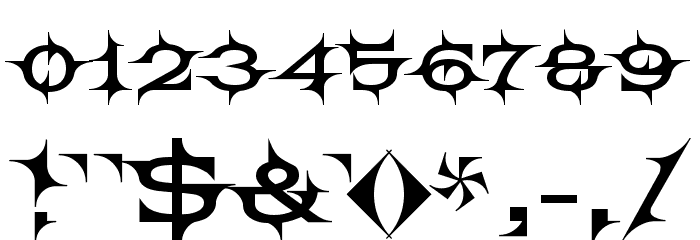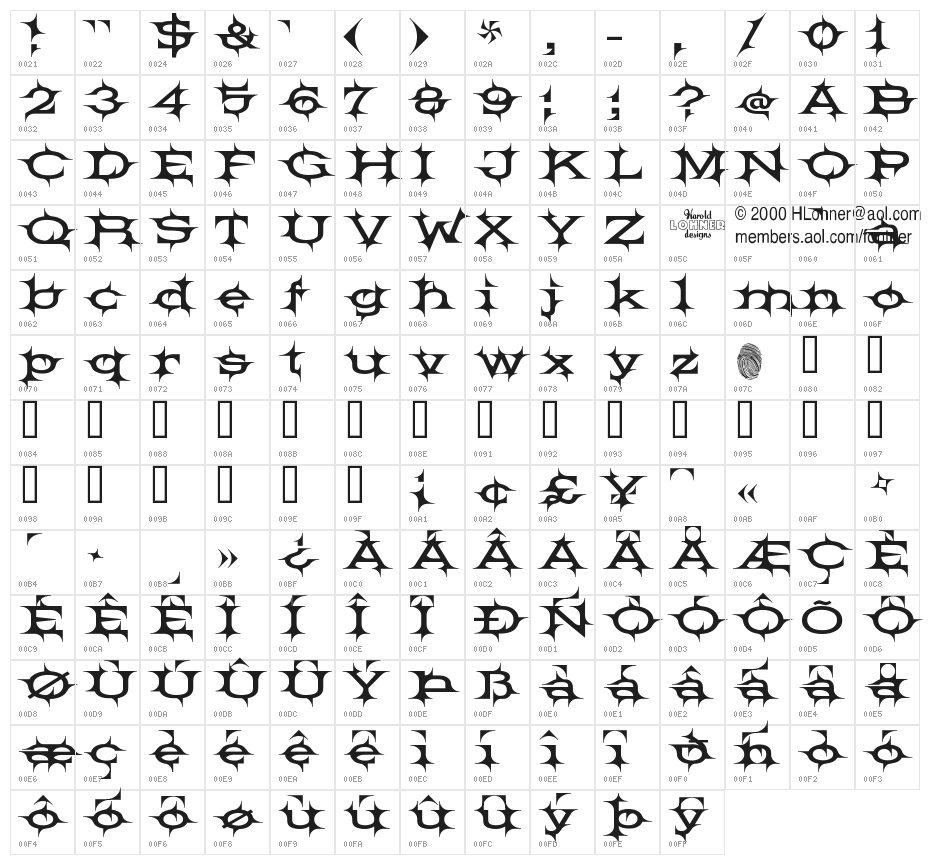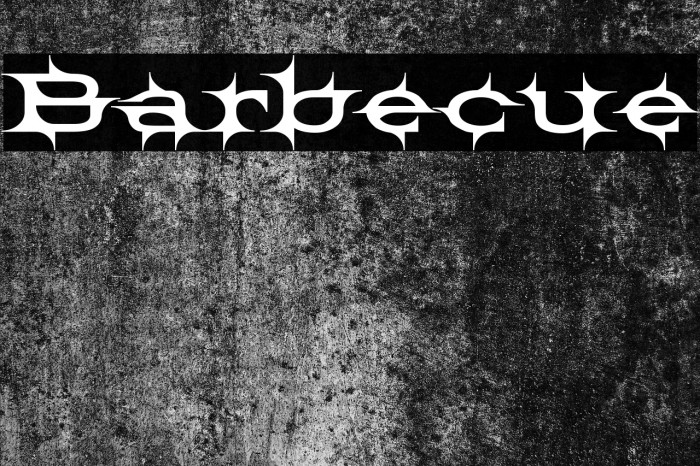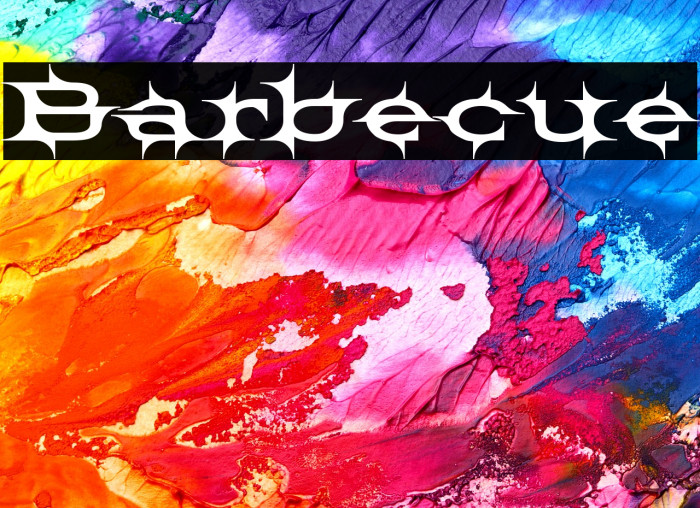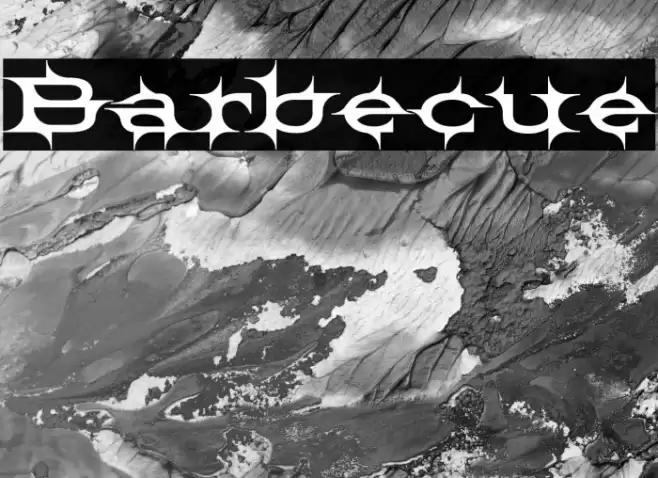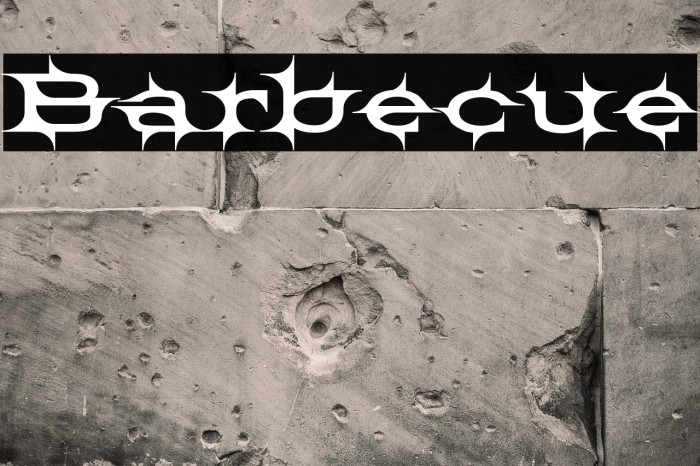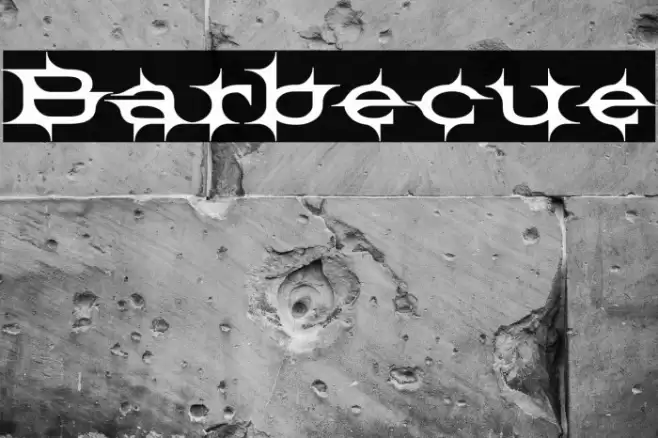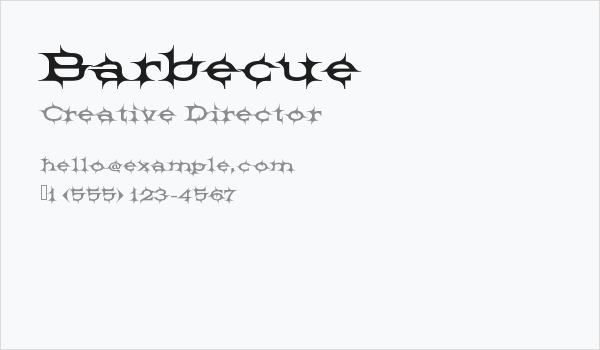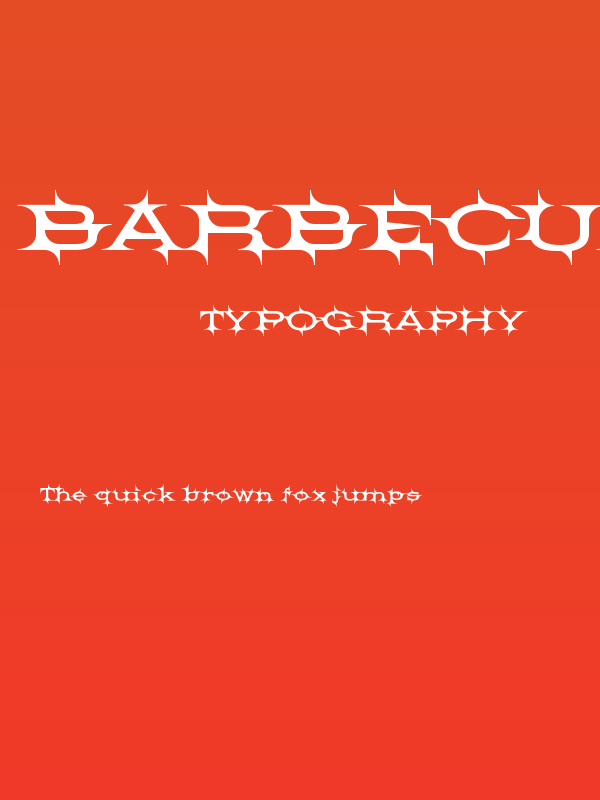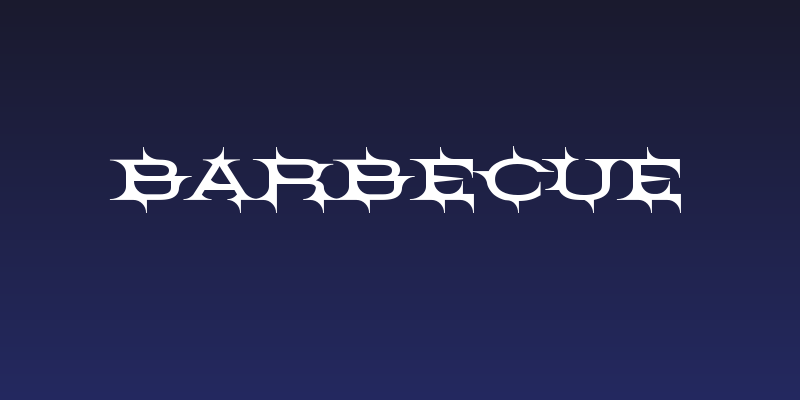
Barbecue Font
Barbecue Description
This font features a bold and edgy design with sharp, thorn-like extensions on each character, giving it a distinctive and aggressive appearance. The uppercase and lowercase letters maintain a consistent style, with pointed serifs and angular lines that create a sense of movement and intensity. The numbers and special characters follow the same aesthetic, ensuring a cohesive look across all elements. This font's unique style makes it stand out, ideal for projects that require a strong visual impact.
| Use Case | Logos, Posters, Headlines |
| Proposed Projects | Ideal for band logos, event posters, or any design requiring a bold, edgy look. |